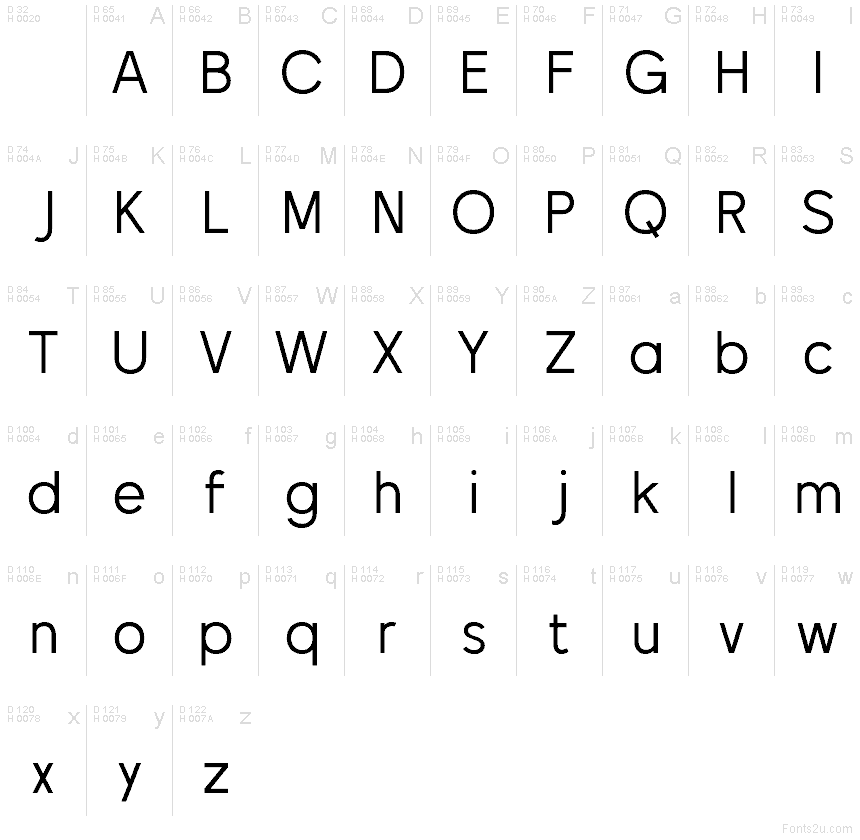
CS Gisborne Regular Demo
CS Gisborne font by Craft Supply Co. is a free regular modern geometric sans serif font. It solves that tricky brief where you want precision without coldness: rounded terminals and circular bowls add warmth, while the monoline strokes and tidy joins keep everything crisp. The rhythm feels steady and unfussy, so logos read cleanly and headlines land with quiet confidence.
Using CS Gisborne, you’ll get reliable clarity for branding, tech landing pages, editorial titles, posters, signage, and packaging. Its compact forms hold together at large sizes, and with a hair of tracking it stays airy in UI labels. This free font pairs naturally with a classic serif for body copy—keep Gisborne for display and let the serif handle paragraphs.